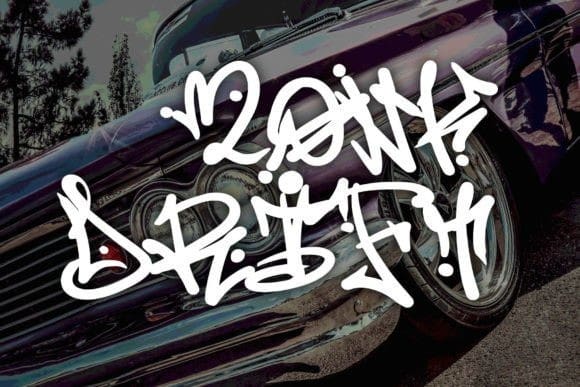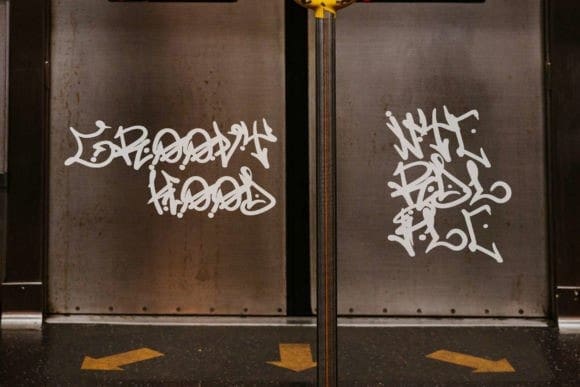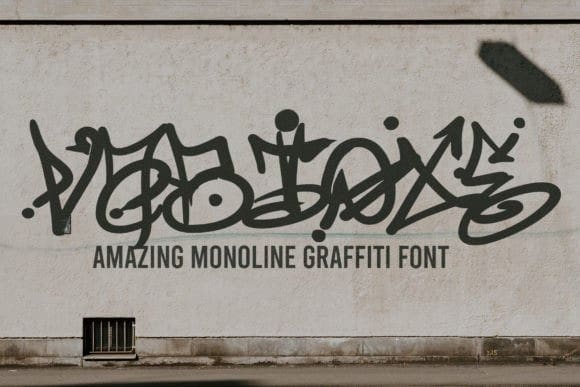
Vabioxe Graffiti Font
Vabioxe Graffiti Font, this font was designed to make graffiti designs easier. Vabioxe is suitable for various media such as packaging, logos, labels, posters, shirt designs, bulletins, typography, and many other creations requiring a graffiti look.